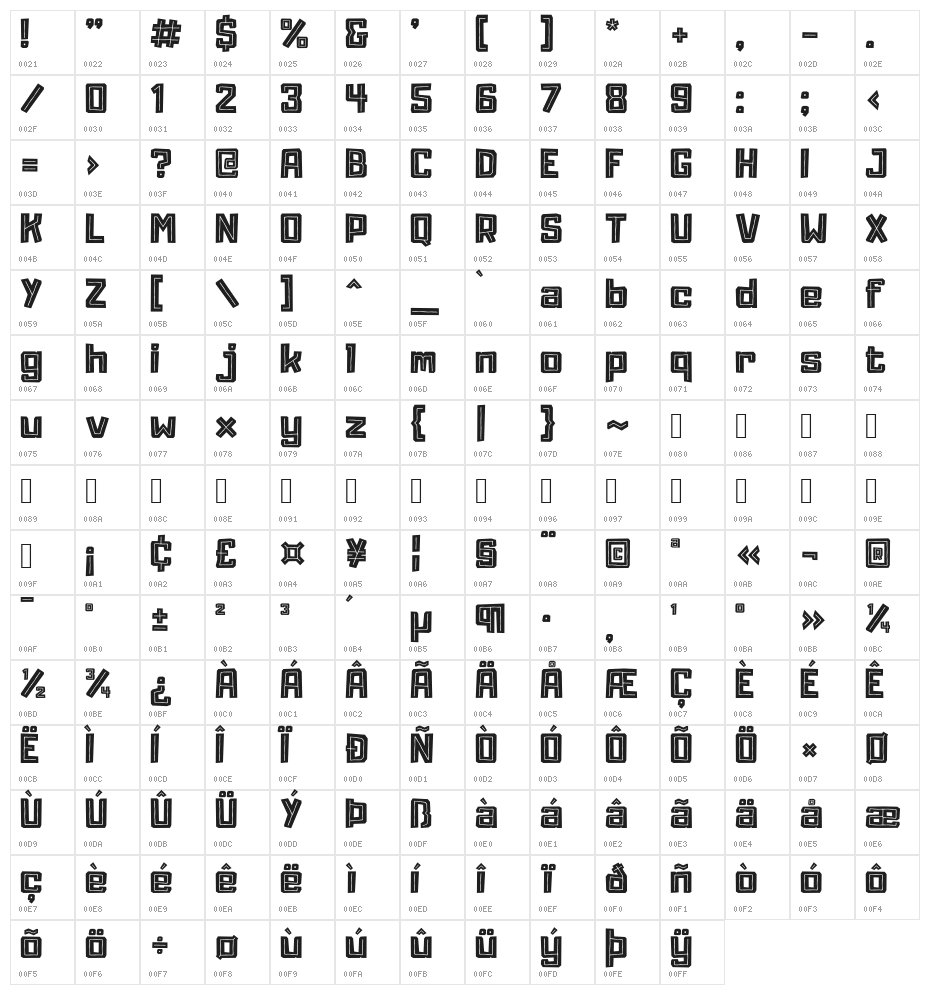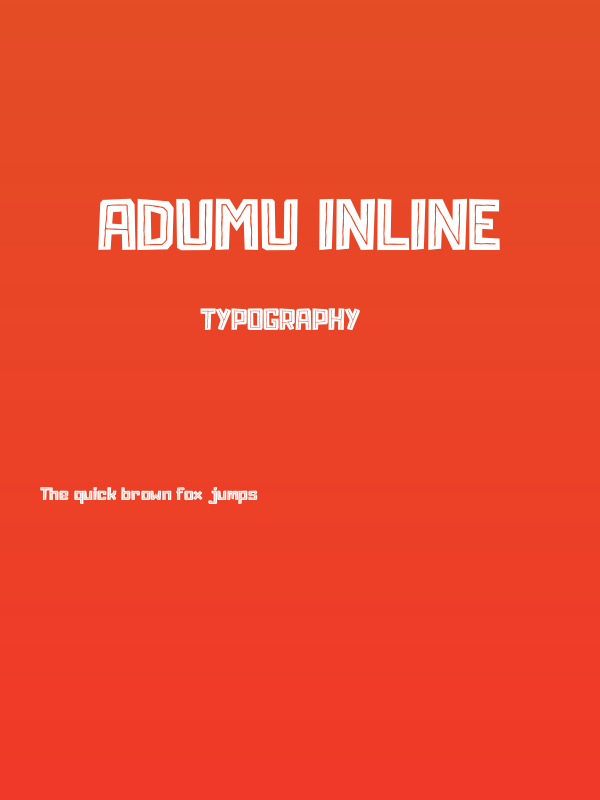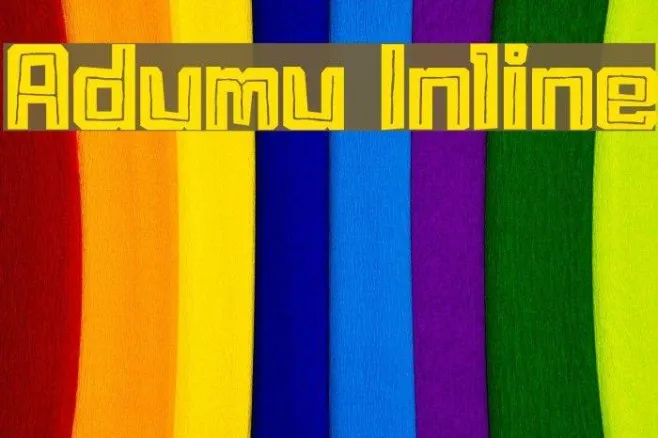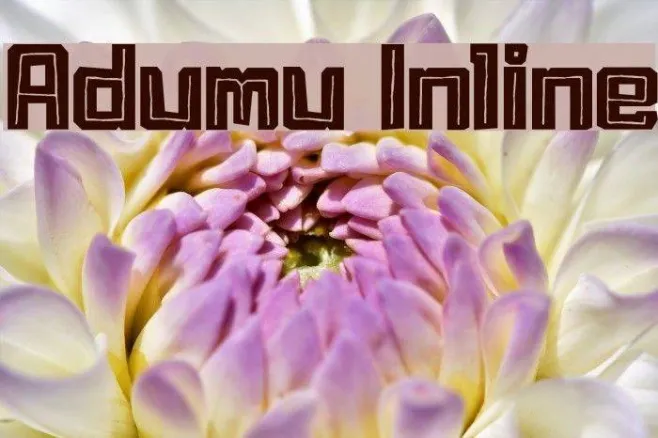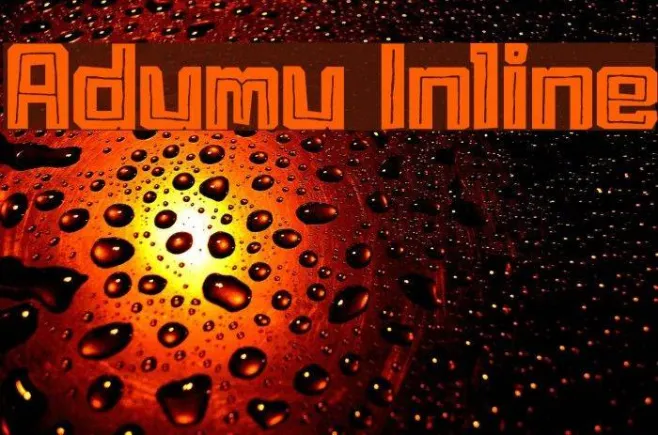
Adumu Inline Font
Adumu Inline Description
This font features a bold, inline style with a distinctive, hand-drawn appearance. The characters are blocky and geometric, with an outlined effect that gives them a three-dimensional look. The uppercase and lowercase letters maintain a consistent style, with sharp angles and a slightly irregular form that adds to its unique charm. The numbers and special characters follow the same design principles, making the font cohesive across all elements. Its bold presence and artistic flair make it suitable for eye-catching designs.
| Proposed Projects | Ideal for poster designs, branding projects, and any creative work that requires a bold and artistic touch. |